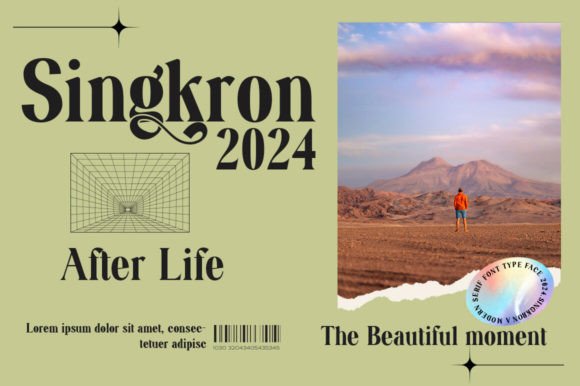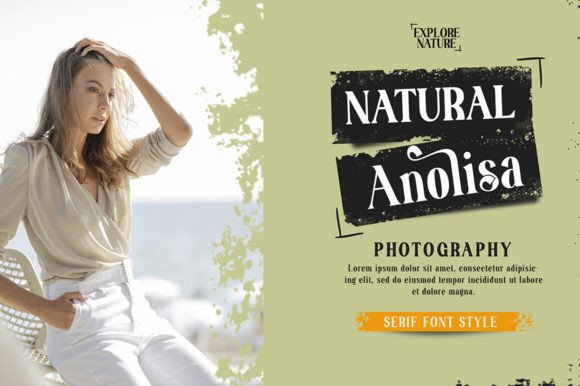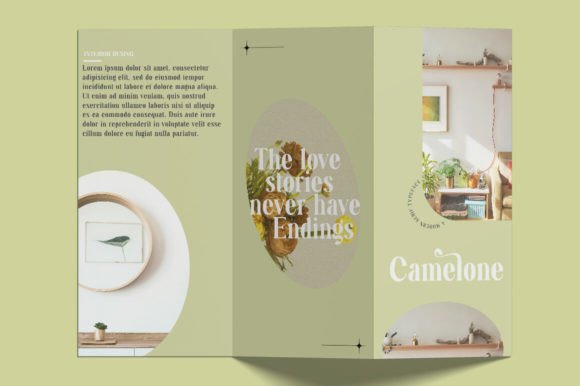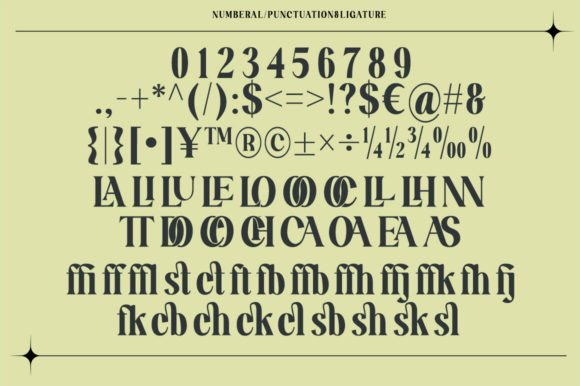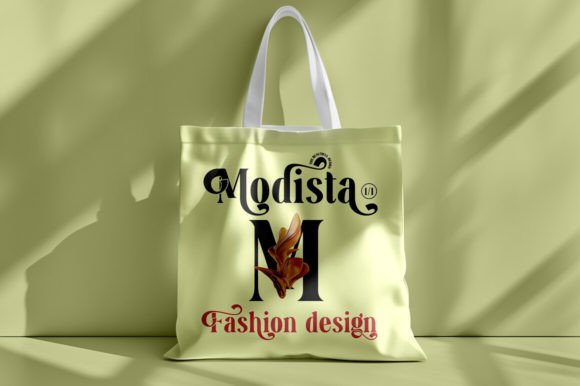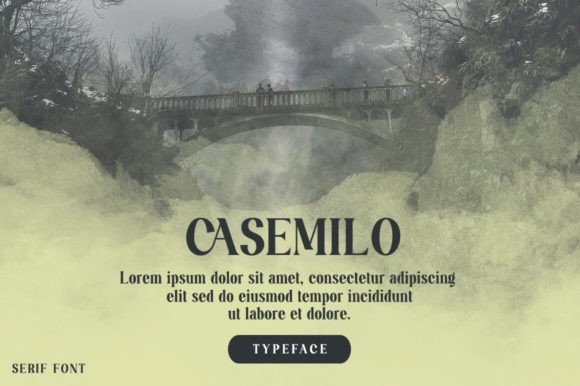
The Elegance of Dellonia: A Serif Font that Elevates Your Designs
I still remember the frustration of working on a high-end branding project, only to find myself stuck on the perfect font. My client wanted something elegant, professional, and luxurious, but everything I tried seemed to fall flat. That was until I stumbled upon Dellonia, a serif font that has since become a staple in my design toolkit. In this article, I’ll share my experience with Dellonia, its features, and how to make the most of this beautiful font.
An Honest Review of Dellonia
What I Love About Dellonia
- ✨ Clean lines and subtle details that blend classic and modern touches
- ✅ Perfect for headlines, logos, and branding projects that require a professional and luxurious look
- 🔥 Bold-thin contrast that adds depth and visual interest to your designs
- 👍 Sharp serifs that provide a crisp, high-end feel
While Dellonia is an excellent font, there are a few things to keep in mind:
- ⚠️ Limited use in body text: Dellonia is best suited for headlines and titles, as its bold-thin contrast can be challenging to read in smaller sizes.
- 🤔 Requires careful kerning: As with any serif font, kerning is crucial to ensure that Dellonia looks its best. Take the time to adjust the kerning to suit your design.
- Experiment with OpenType features like ligatures and stylistic alternates to add visual interest to your design.
- Access Glyphs and OpenType features to unlock the full potential of Dellonia, including stylistic alternates and ligatures.
The Backstory of Dellonia
Dellonia was designed with the intention of creating a font that blends classic elegance with modern touches. Inspired by traditional serif fonts, the designer aimed to craft a font that is both timeless and contemporary. The result is a font that exudes sophistication and luxury, perfect for high-end branding and design projects.
Q: What is Dellonia best used for?
A: Dellonia is best used for headlines, logos, and branding projects that require a professional and luxurious look.
Q: Can I use Dellonia for body text?
A: While possible, Dellonia is not ideal for body text due to its bold-thin contrast, which can be challenging to read in smaller sizes.
Q: Is Dellonia a versatile font?
A: Yes, Dellonia is a versatile font that can be used in a variety of design projects, from luxury branding to editorial design.
Q: Does Dellonia support OpenType features?
A: Yes, Dellonia supports OpenType features, including ligatures, stylistic alternates, and glyphs.